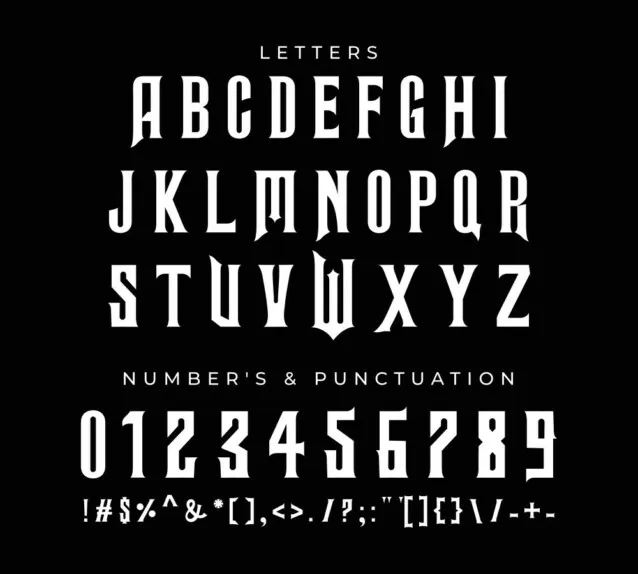
Wicked Font
Wicked Font is a carefully crafted display typeface inspired by the magical Art Nouveau–style title lettering from the upcoming Wicked movie by Jon M. Chu. With smooth curves, elegant details, and a dramatic fantasy feel, this font captures the luxurious and mystical spirit of the Land of Oz. It’s perfect for horror designs, Halloween fashion, posters, and any project that needs a magical, eye-catching look.